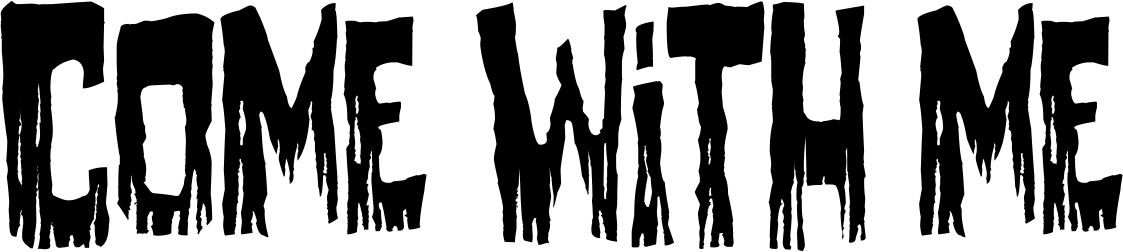
Come With Me Font
Bring fear and anxiety to your text layout with this horror font. Come With Me features torn and damaged characters and works flawlessly for movies, posters, flyers, and so on. Bear in mind that this one lacks lowercase letters. If you found this freebie helpful, don’t forget to visit our boundless horror fonts.